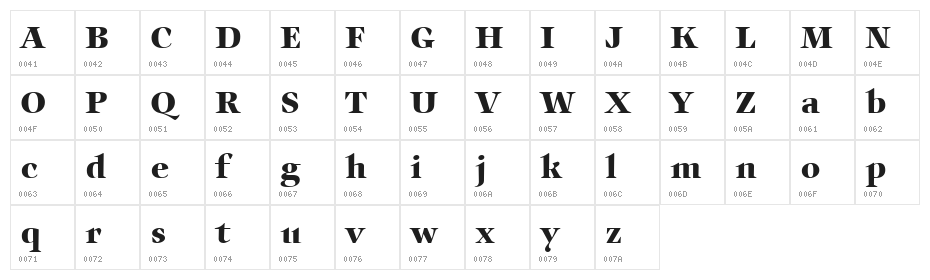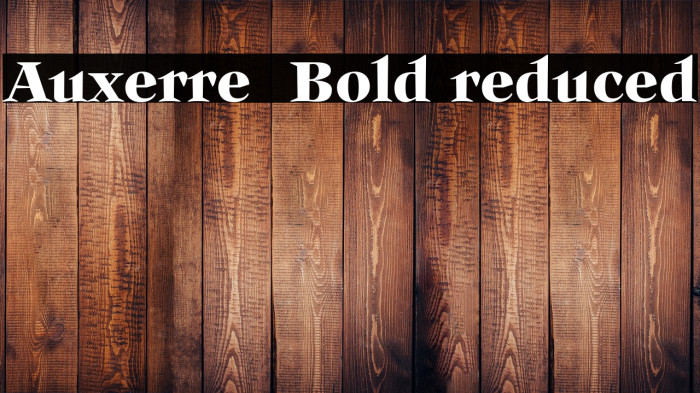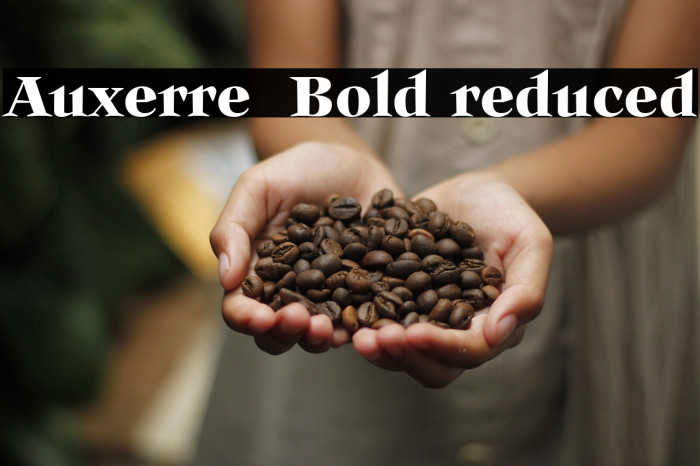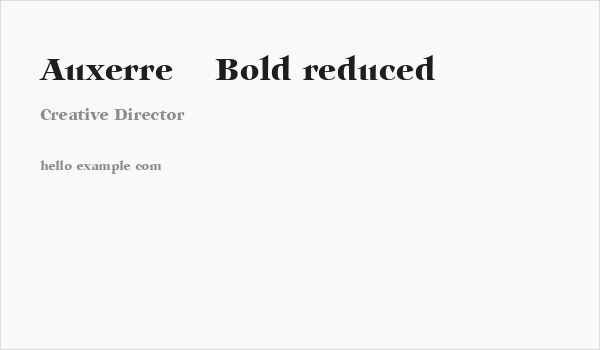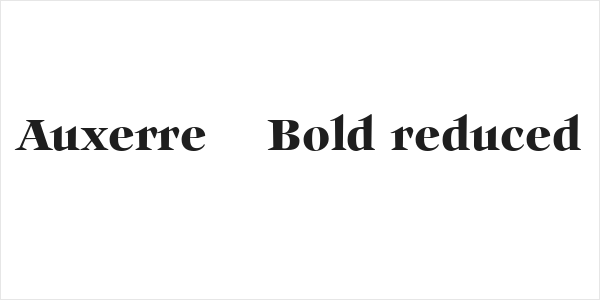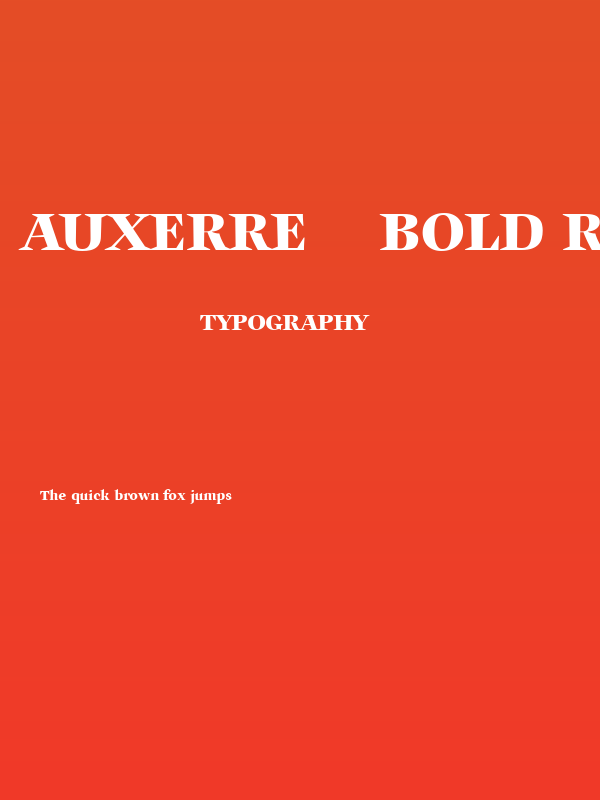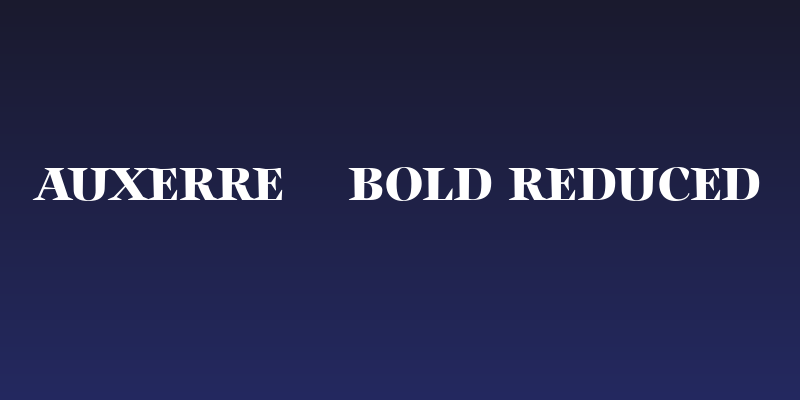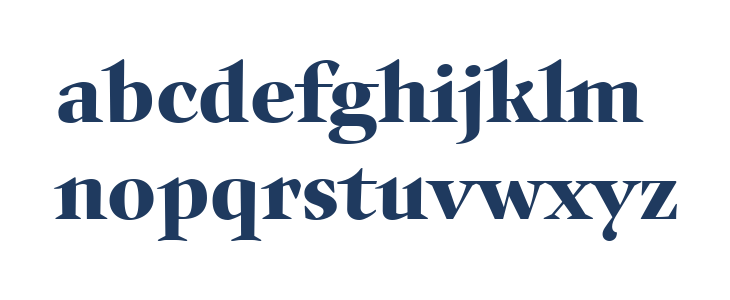
Auxerre 75 Bold reduced Font
Auxerre 75 Bold reduced Description
This font features a bold and striking serif design, characterized by its sharp, angular serifs and strong vertical stress. The uppercase letters are tall and commanding, while the lowercase letters maintain a consistent weight, providing a harmonious balance. The font's boldness is evident in its thick strokes, which create a powerful presence on the page. The overall design is reminiscent of traditional serif fonts but with a modern twist, making it suitable for both classic and contemporary applications. The spacing between characters is tight, enhancing the font's compact and impactful appearance.
| Proposed Projects | Ideal for headlines, branding, editorial design, and any project requiring a bold, authoritative typeface. |